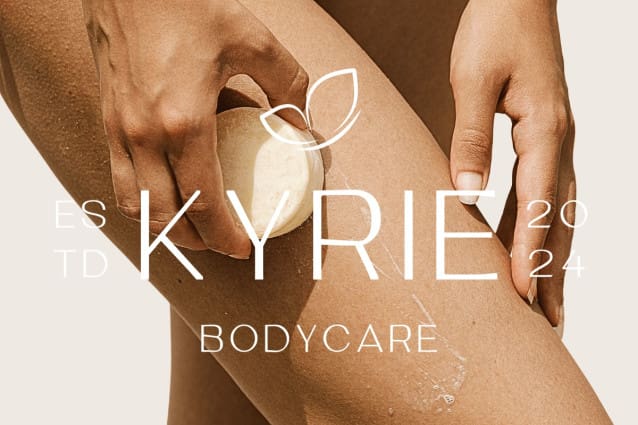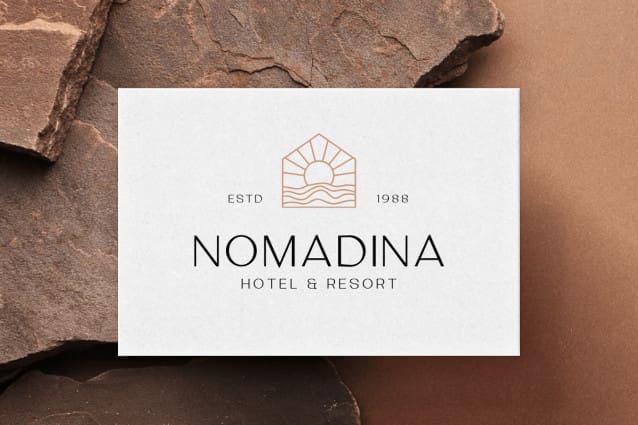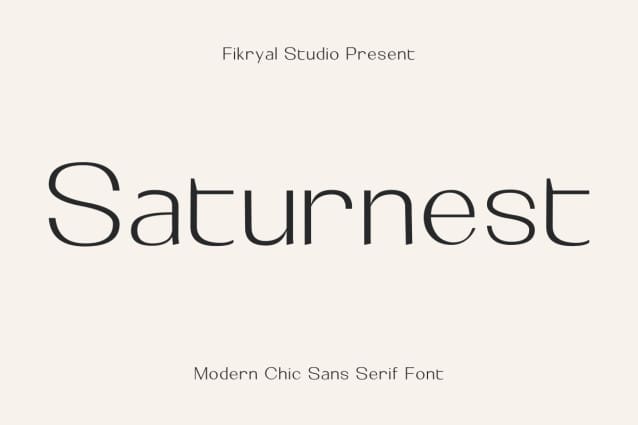
Saturnest Font
Saturnest Font – Modern Chic Sans Serif Font is a sophisticated and versatile typeface that brings a modern touch to any project.
With three flexible weights—Light, Normal, and Bold—it’s perfect for creating sleek, professional designs across various media.
Whether you’re working on product packaging, branding materials, or website interfaces, Saturnest delivers clarity and style.
This font shines in branding applications, helping businesses establish a strong, contemporary identity.
Its clean lines and minimalist design make it an ideal choice for logos, business cards, and corporate presentations, adding a polished, professional look.
For product design, Saturnest complements high-end packaging with its sleek aesthetic, enhancing the product’s appeal and reinforcing brand value.
Designed with global accessibility in mind, Saturnest Font also supports an extensive range of multilingual languages, ensuring seamless communication across different regions.
From brochures to digital platforms, this font ensures consistent quality in every format.